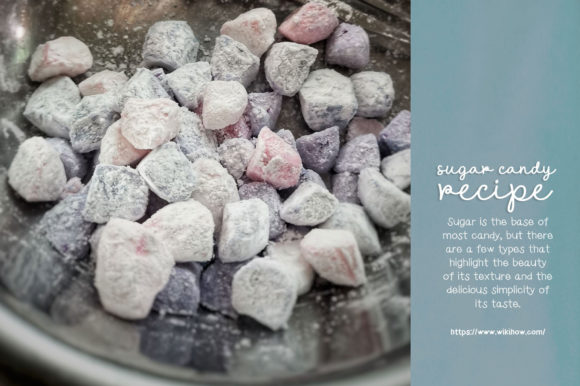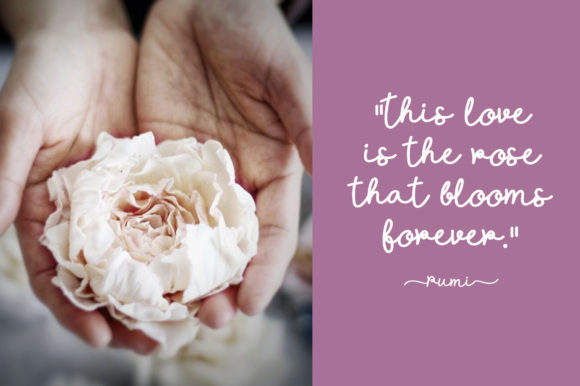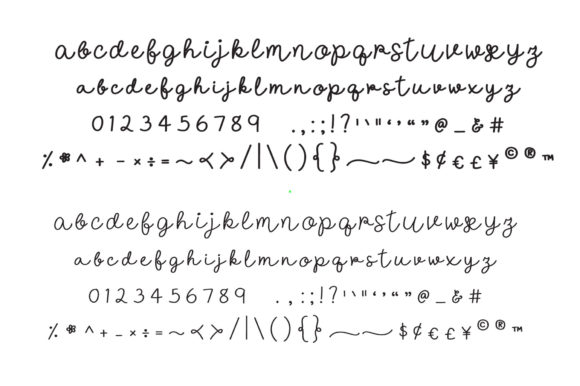
Introducing Handyman Script Font: The Sweet and Delicate Choice for Designers
Are you tired of using the same old fonts in your designs? Look no further! Handyman Script Font is a beautiful, sweet, and delicate handwritten font that’s perfect for a wide range of design projects. Its neat and simple style makes it an excellent choice for designers and crafters who want to add a touch of elegance and sophistication to their work.
What Makes Handyman Script Font Special?
Handyman Script Font is a unique and versatile font that’s suitable for various design applications, including:
The font’s neat and simple style ensures that it can be used in a variety of contexts, from formal to informal, without losing its charm. Whether you’re designing for a client or working on a personal project, Handyman Script Font is sure to impress.
Key Features of Handyman Script Font
Here are some of the key features that make Handyman Script Font an excellent choice for designers:
- Sweet and delicate style: The font’s handwritten style is both sweet and delicate, making it perfect for designs that require a touch of elegance.
- Neat and simple: The font’s neat and simple style ensures that it’s easy to read and understand, making it suitable for a wide range of design applications.
- Versatile: Handyman Script Font can be used in various design contexts, from formal to informal.
How to Use Handyman Script Font in Your Designs
Using Handyman Script Font in your designs is easy. Here are some tips to get you started:
- Pair it with other fonts: Handyman Script Font can be paired with other fonts to create a unique and visually appealing design.
- Use it for headings and titles: The font’s sweet and delicate style makes it perfect for headings and titles.
- Add it to your branding: Handyman Script Font can be used in logos, business cards, and other branding materials to add a touch of elegance.
- Experiment with colors and textures: The font’s simple style makes it easy to experiment with different colors and textures.
Why Designers and Crafters Love Handyman Script Font
Designers and crafters love Handyman Script Font for several reasons:
- Unique style: The font’s sweet and delicate style sets it apart from other fonts.
- Versatile: Handyman Script Font can be used in various design contexts, from formal to informal.
- High-quality: The font is of high quality, making it perfect for professional designs.
In conclusion, Handyman Script Font is a beautiful, sweet, and delicate handwritten font that’s perfect for designers and crafters who want to add a touch of elegance and sophistication to their work. Its neat and simple style makes it suitable for a wide range of design applications, from logos and branding to social media graphics and web design. With its unique style, ease of use, and versatility, Handyman Script Font is sure to become your go-to font for all your design needs.